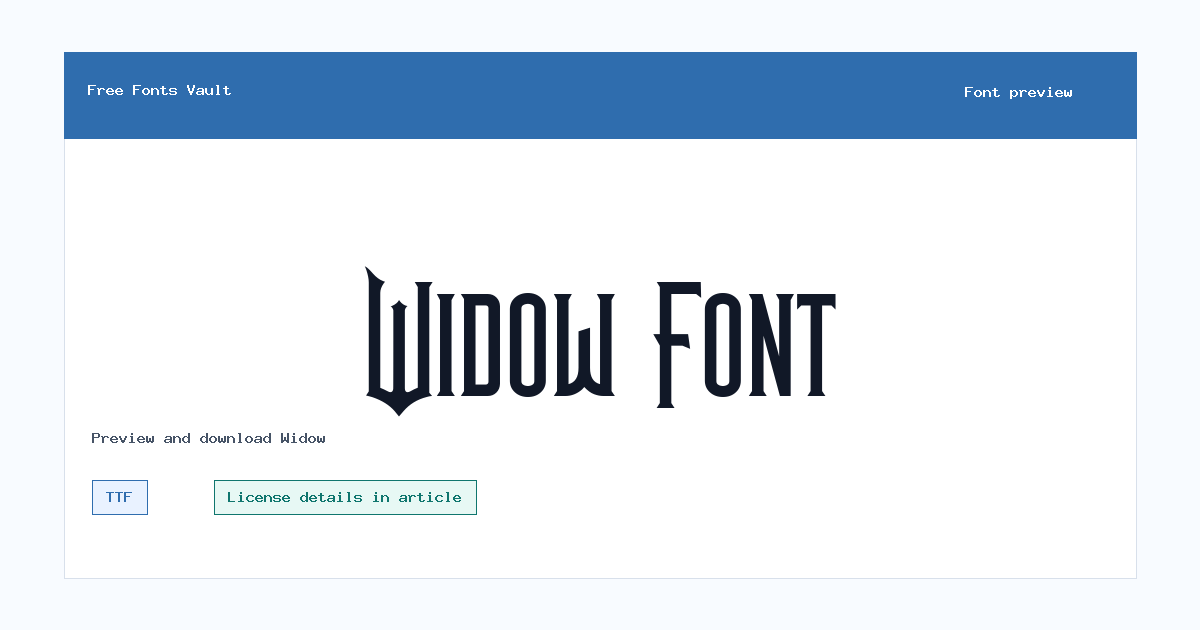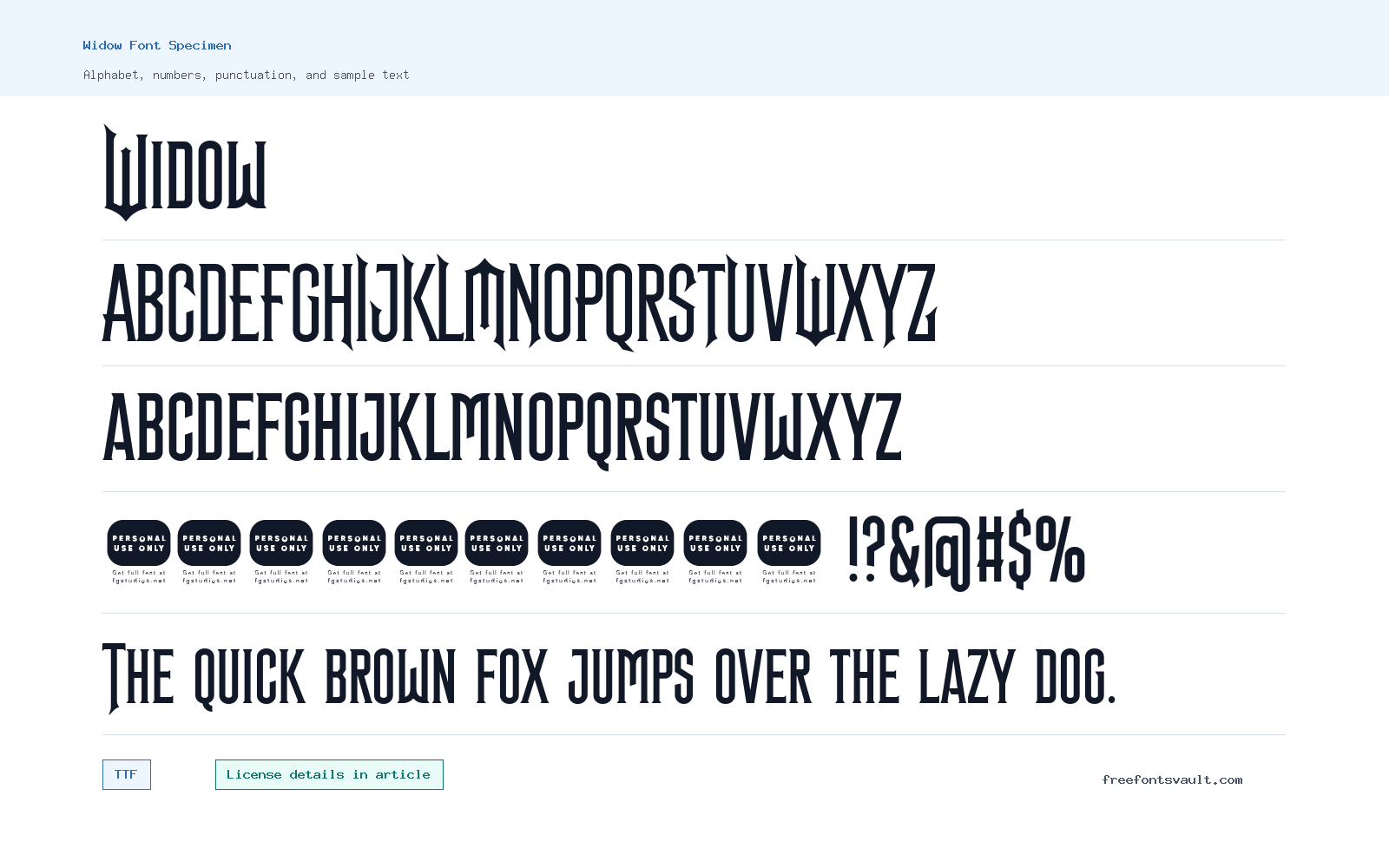
Widow
- Designer fgstudios
Widow is a sharp gothic display font with tall letterforms, heavy vertical strokes, and pointed details. It is built for dramatic short text, not quiet reading, so it works best when a title needs an immediate dark or intense mood.
The regular TTF file gives Widow a blackletter-inspired look without turning it into a traditional book face. Its narrow shapes, pointed terminals, and compact rhythm make words feel strong, theatrical, and a little aggressive. That can be useful for horror posters, fantasy graphics, music artwork, tattoo-style layouts, game titles, and cover mockups.
Widow should be previewed with the real words you want to use. Decorative gothic fonts can vary a lot from one letter pair to another, and some lowercase or special characters may not behave like a standard text family. Test capitals, numbers, punctuation, and any names before downloading. If the message needs fast reading, keep the font large and the phrase short.
The safest role for Widow is a headline or visual accent. Pair it with a plain serif or sans serif for paragraphs, credits, and product details. That contrast lets the gothic title carry the personality while the rest of the layout stays readable.
- Gothic display style with narrow, pointed, high-impact letterforms.
- Strong uppercase presence for posters, covers, and title graphics.
- Best used at larger sizes where decorative cuts stay visible.
- Horror, gothic, fantasy, tattoo, and dark music design tests.
- Poster titles, cover art, thumbnails, and event graphics.
- Game headings, themed banners, and dramatic social graphics.
- One-word or two-word display settings where readability can be checked carefully.
Use Widow for short text and inspect every character. Gothic display fonts can look powerful in a large title but become difficult in small captions, menus, or dense paragraphs. Add spacing if the sharp forms feel crowded.
What kind of font is Widow?
Widow is a gothic display font with tall, narrow, pointed letterforms. It is made for dramatic titles and short visual accents.
Why should I preview my own text?
The decorative gothic shapes can change readability from word to word. Preview your exact title, numbers, and punctuation before downloading.